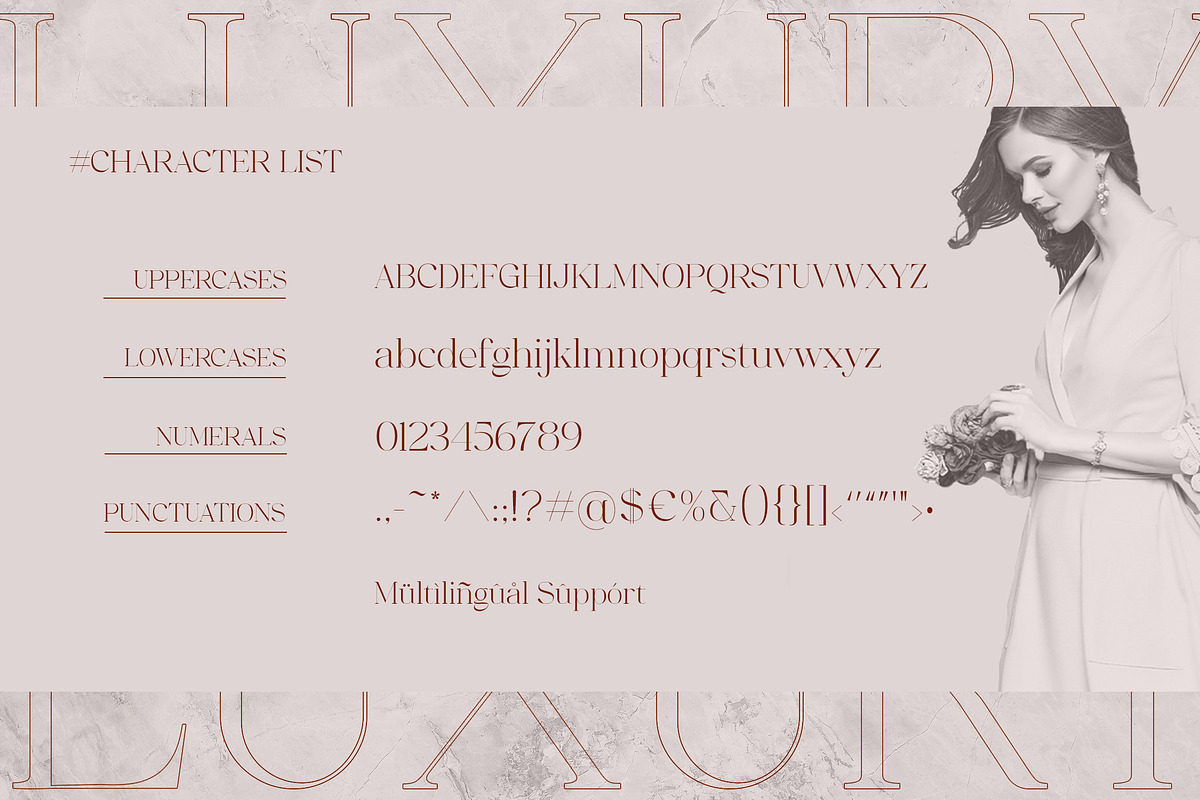
Quartage Serif
Quartage is a luxury and modern serif font.
Quartage Serif font is perfect for your up coming projects. Such as logo branding, editorial design, stationery design, blog design, modern advertising design, card invitation, art quote, home decor, book/cover title, special events and any more.